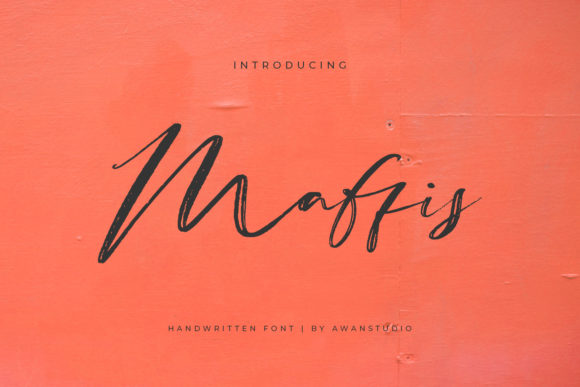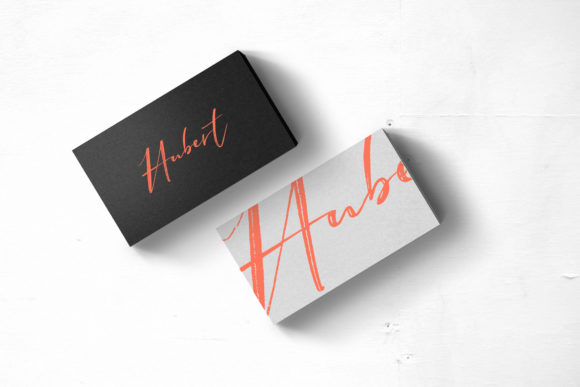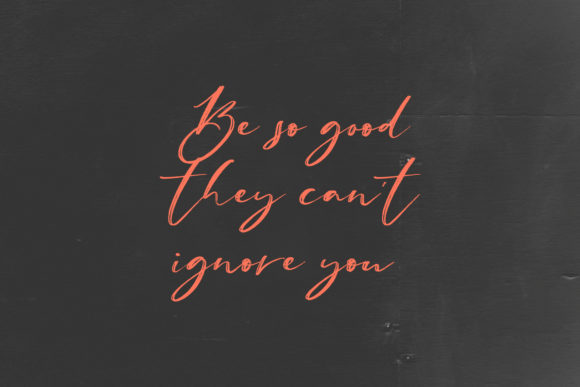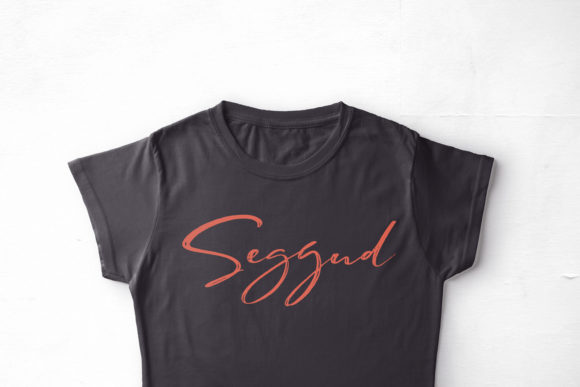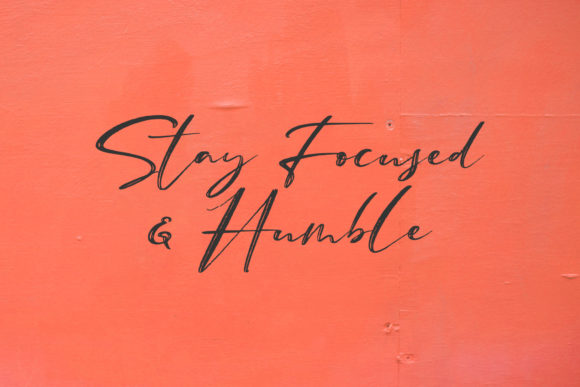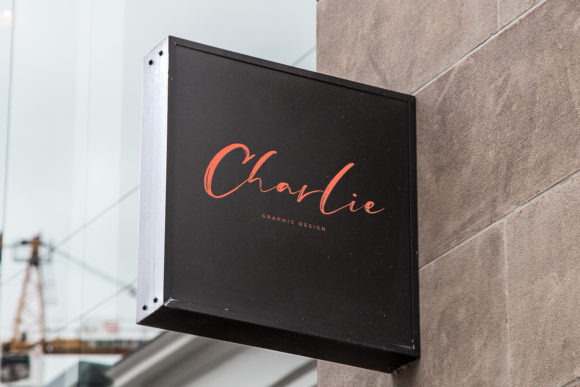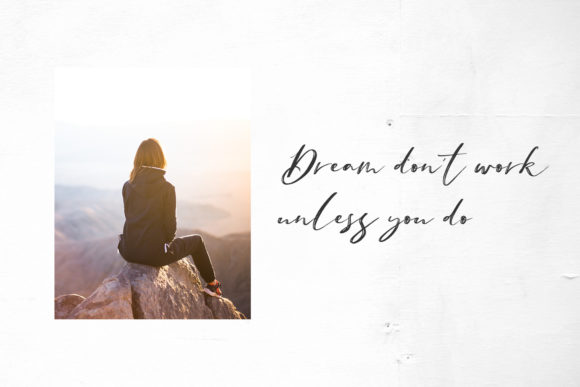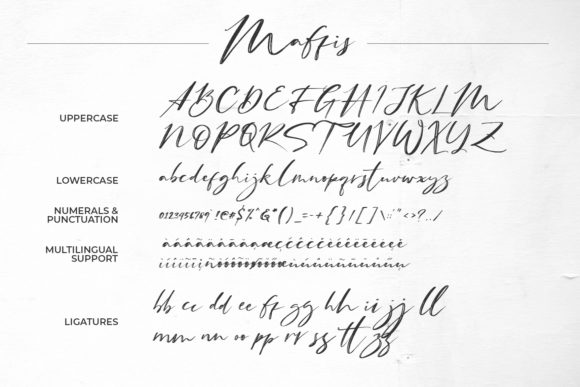
Maffis Font
About Maffis Font
Maffis is a light and charming handwritten font with an incredibly stunning vibe. Use it to add a touch of authenticity to any creative project!